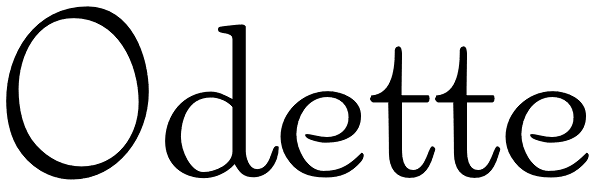
Odette
The Morris Benton 1918 American classic, Announcement Roman, comes to digital life with more pizzazz than it ever had. Named after the Swan Lake princess, Odette is the ideal choice for titling, poetry, advertising, poster design, and branding...